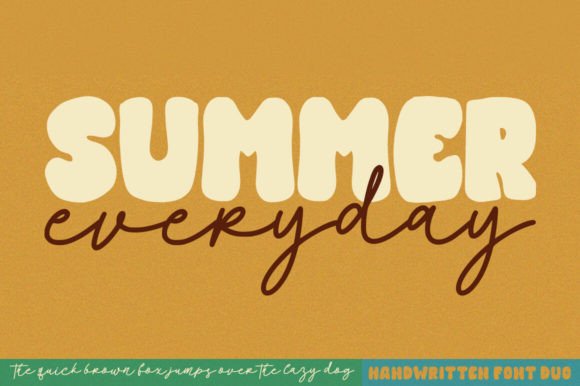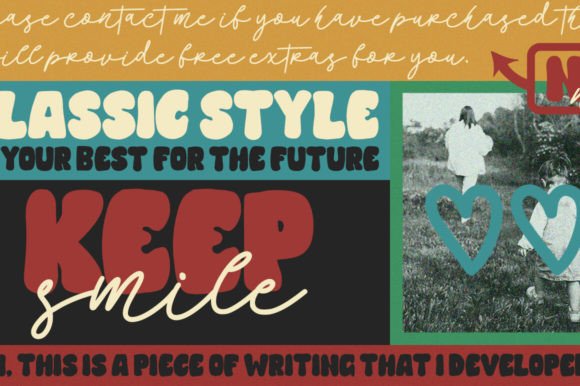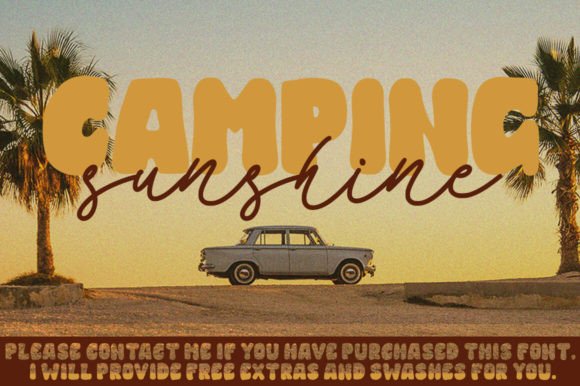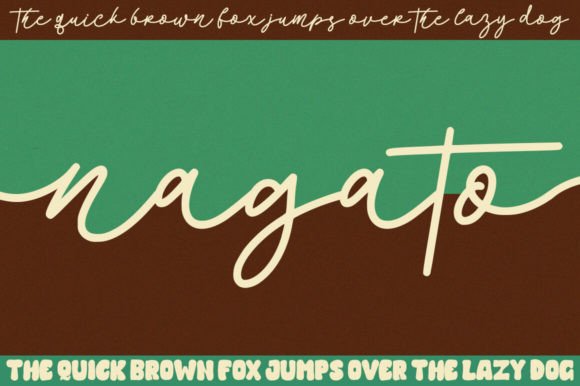
Summer Everyday Font
About the Summer Everyday Font
Meet Summer Everyday Font, a stunning font that brings a touch of elegance and professionalism to any design. Summer Everyday – is a Duo Font (Monoline and Display), featuring a vintage and soft look. This original look will attract a variety of crafty ideas, from branding and titles to stationery.
Summer Everyday Font Usage Examples
Summer Everyday Font Example